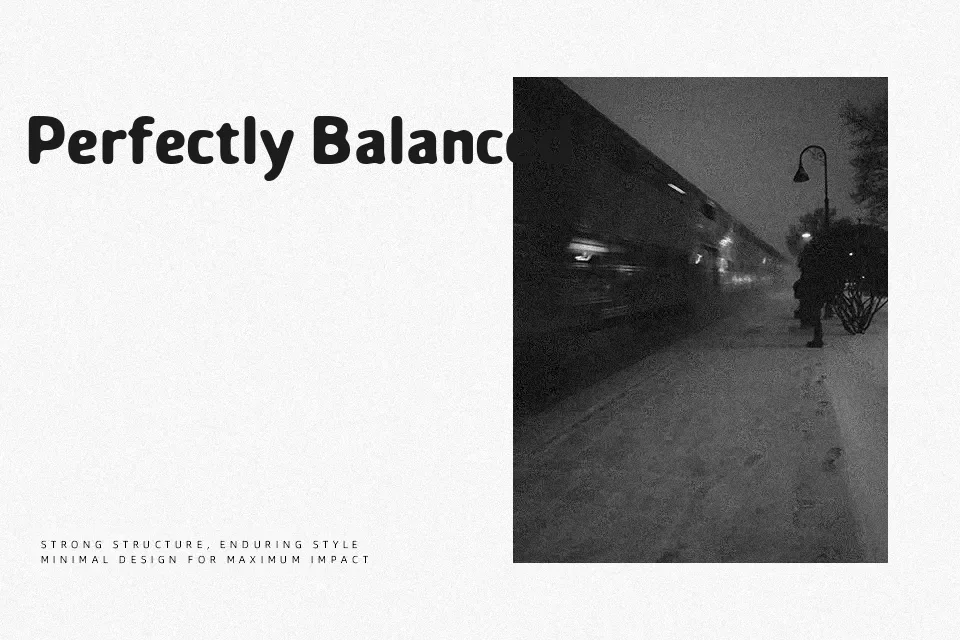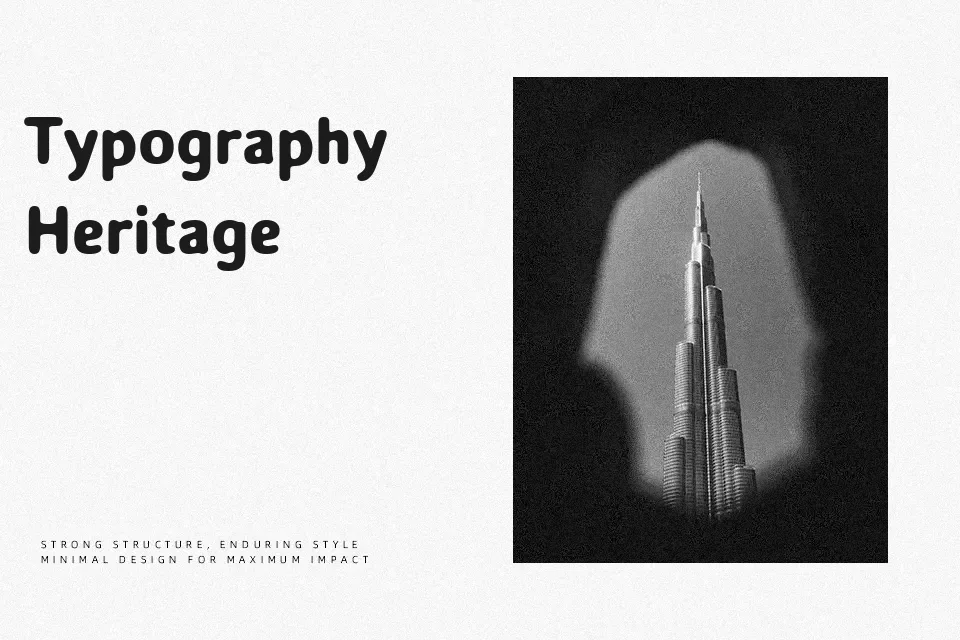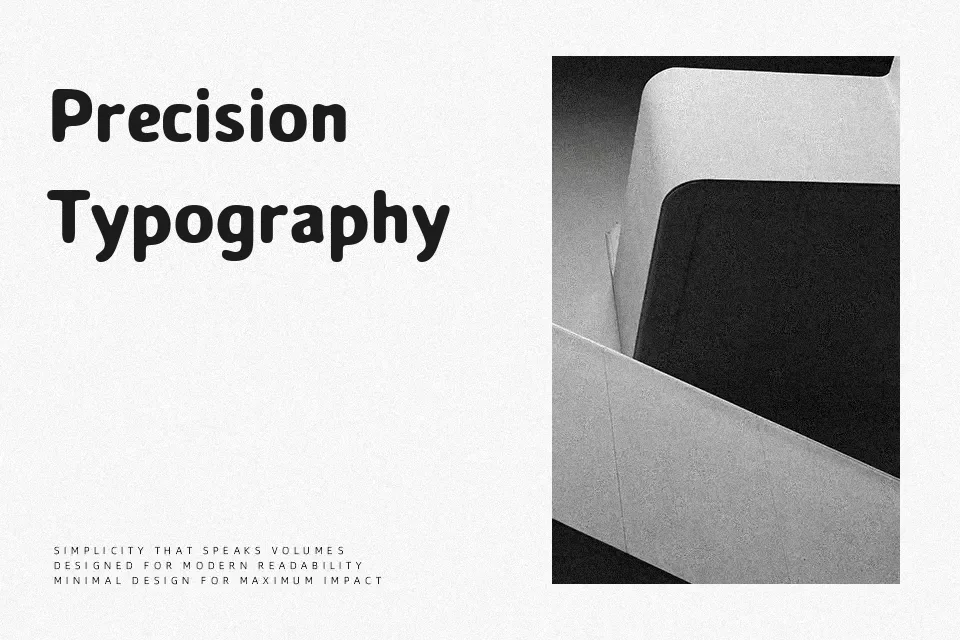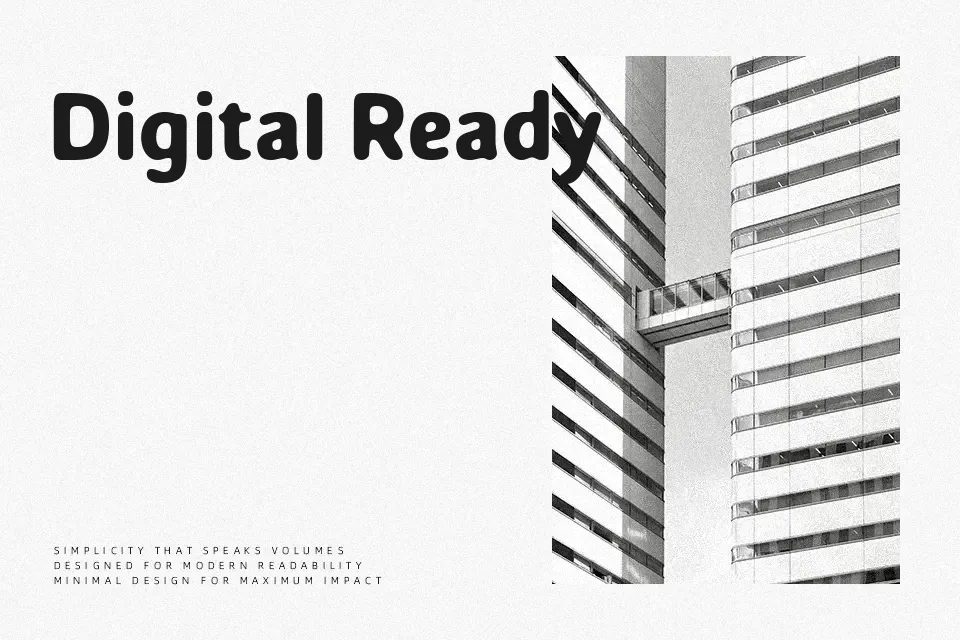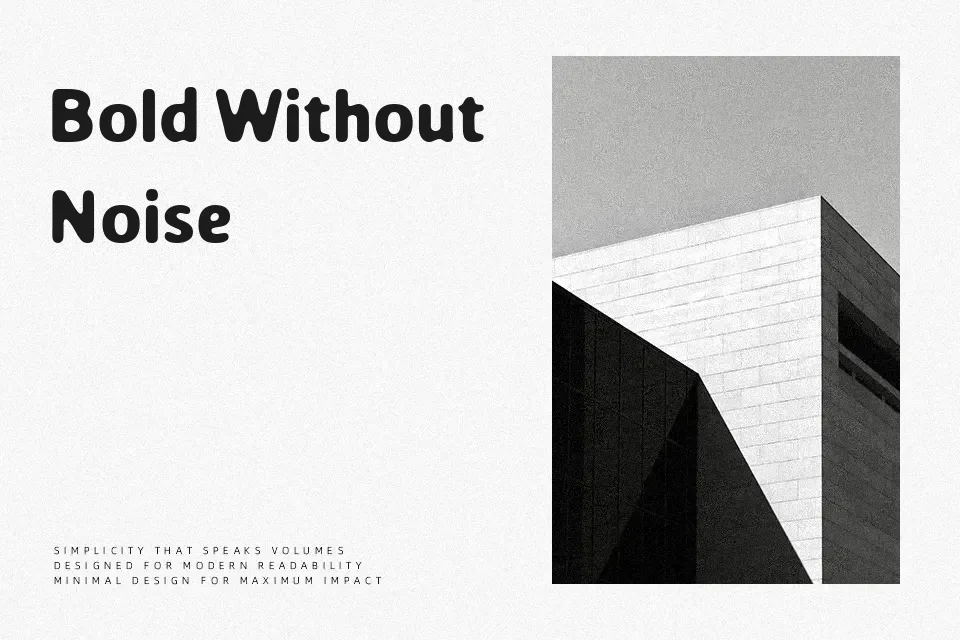
Soft Core Font
Designed by Matija Blagojevic
Soft Core Font introduces an eye-catching display style built around thick, monoline strokes and generously rounded terminals. The letterforms exhibit solid proportions and uniform weight distribution, creating a warm, fluid presence across large-scale applications. Character spacing is relatively tight to preserve visual cohesion, helping headlines and branding graphics hold together effectively without awkward gaps. While the robust shapes ensure excellent legibility in short promotional phrases, the heavy anatomy and enclosed counters reduce clarity in dense, continuous text layouts. The typeface provides designers with a distinctive, tactile aesthetic whenever impactful titles require a welcoming, approachable tone.
music festival posters,streetwear apparel graphics,creative packaging labels,website hero headlines
long paragraph text,small caption labels,dense editorial layouts,technical documentation